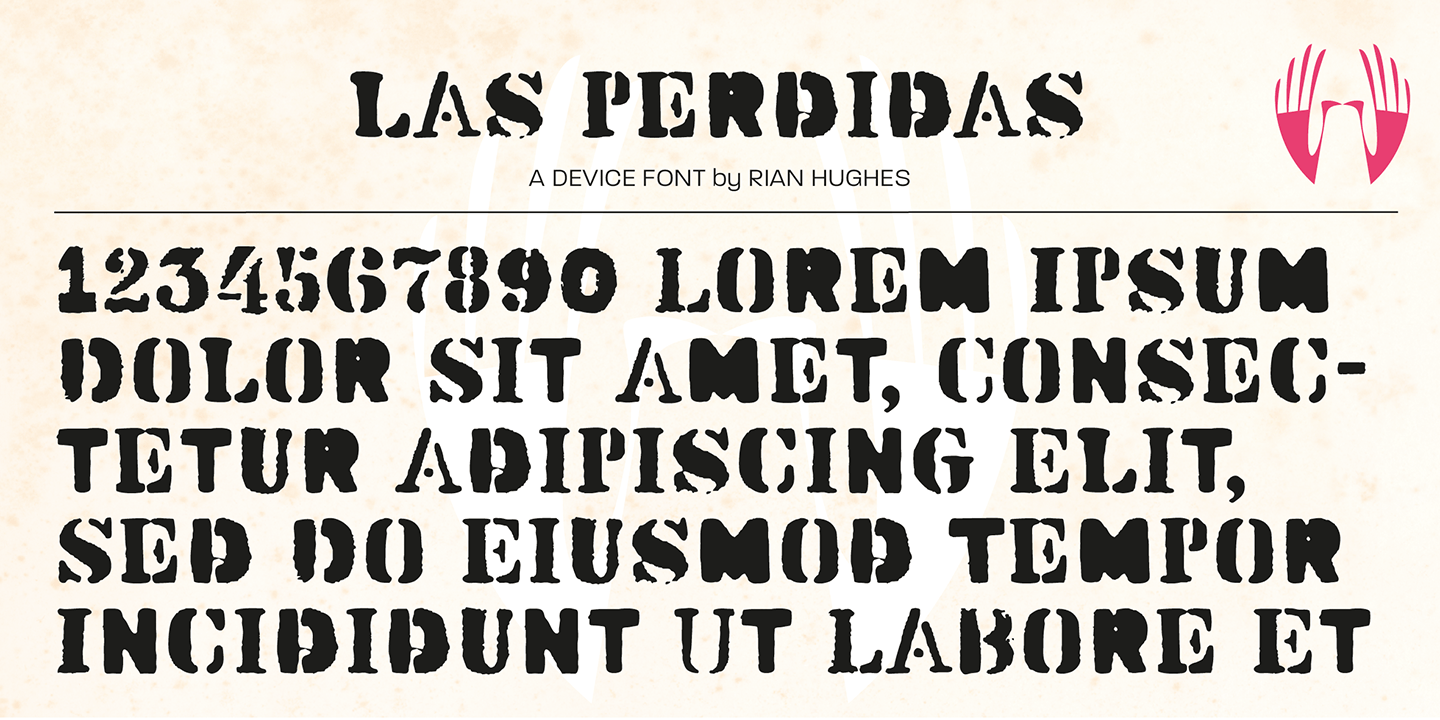
Las Perdidas
Las Perdidas is a distressed urban display font with a rough, graffiti-inspired attitude. Its worn texture and raw letterforms give it an immediate streetwise presence, making it a strong choice when you want type that feels expressive, gritty, and deliberately imperfect.
With its special-effect styling, this single-style release works especially well for posters, album-inspired graphics, apparel, skate and streetwear branding, packaging, and other display uses that benefit from an edgy, handmade feel. Designed by Device, it brings bold character to layouts that need something louder and less polished than a conventional display face.